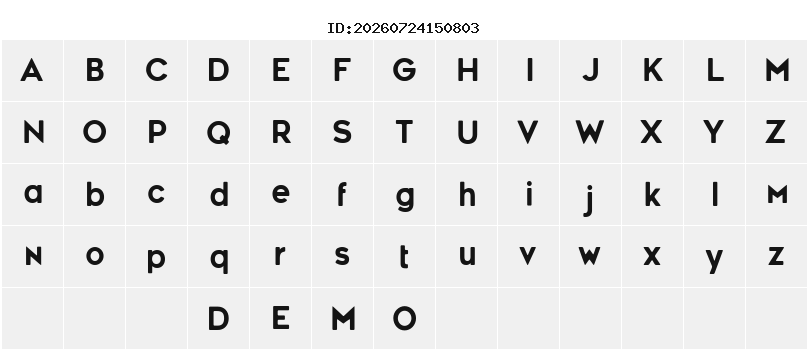
• Font Name: Mimi Mimi
• Designer: Mimi
• Manufacturer: Mimi
About Mimi Mimi.ttf
Mimi Mimi.ttf is a modern, elegant sans-serif font designed for ultimate readability and visual harmony. Perfect for branding, headlines, web design, and print materials.